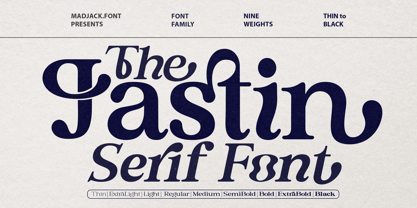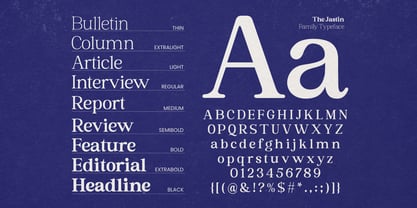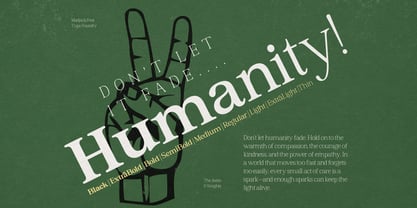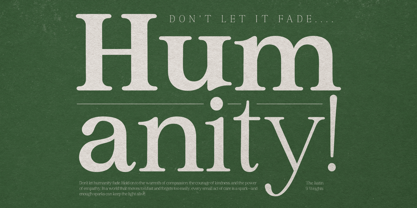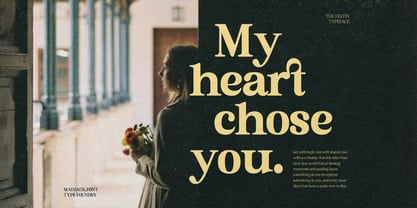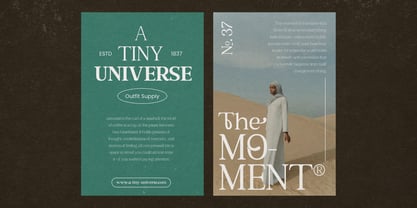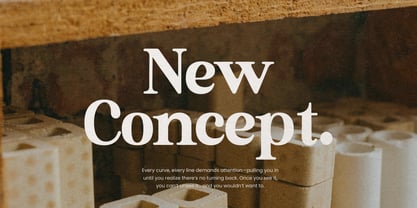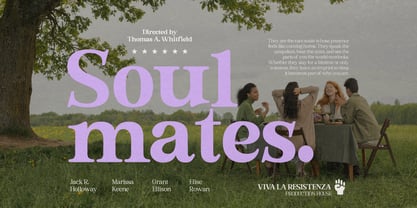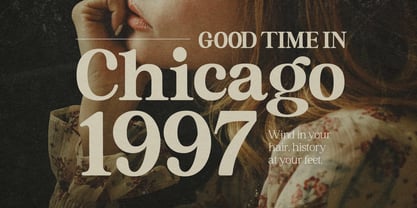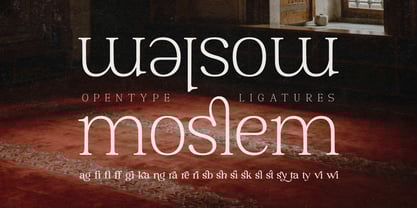
The Jastin
The The Jastin Font Family was designed by Zaki Muhammad and published by madjack.font. The Jastin contains 20 styles and family package options. More about this family
The Gastin is a modern serif font with a touch of elegance and classic charm, combined with a contemporary twist. This font stands out for its bold, flowing letterforms and distinctive ornamental details on certain characters, such as swashes and unique serif endings. This font is ideal for design projects that want to convey a luxurious, vintage, or editorial feel.
Unique Serif Style: Combines traditional serif structures with stylish and decorative curves.
Versatile Uses: Perfect for branding, editorial design, logos, invitations, posters, and headlines.
Artistic Character: Some letters (like "G" and "t") have very distinctive designs, making them visually memorable. 📌 Visual Impression:
Elegant
Classic yet modern
Luxurious
Artistic
Distinctive
If you want to create a design that feels premium, stylish, and creative, this font is a great choice—especially for high-end branding, fashion editorials, or exclusive packaging.